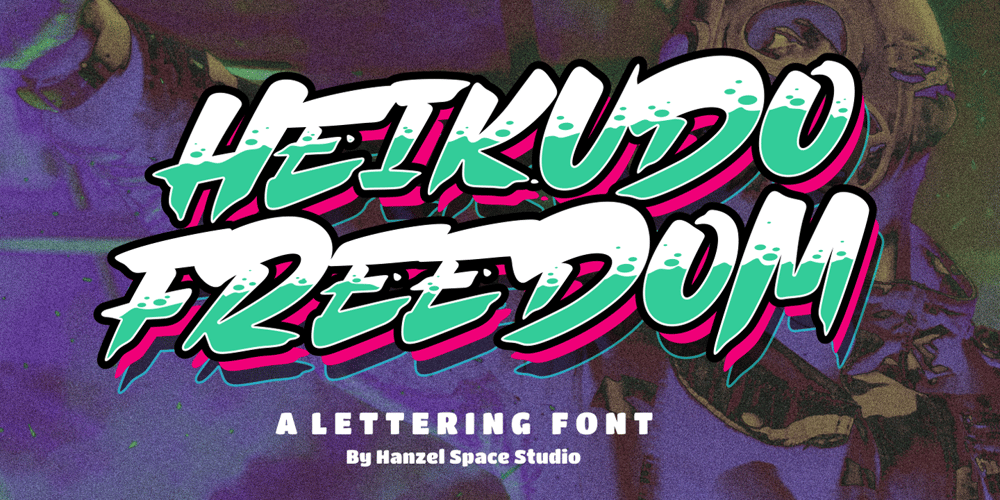
Heikudo Freedom Font Family was designed by Hanief Farandi and published by Hanzel Space. Heikudo Freedom contains 1 styles and family package options. A typeface that proves its usefulness over time. Letter strokes that produce unique characters on each glyph so that they display a natural impression. This font is very suitable for branding, film titles, book titles, quotes, product names and the business you want to create.What’s Included : Heikudo Freedom Standard glyphs Works on PC / Mac Simple installations Accessible in the Adobe Illustrator, Adobe Photoshop, Adobe InDesign, even work on Microsoft Word.